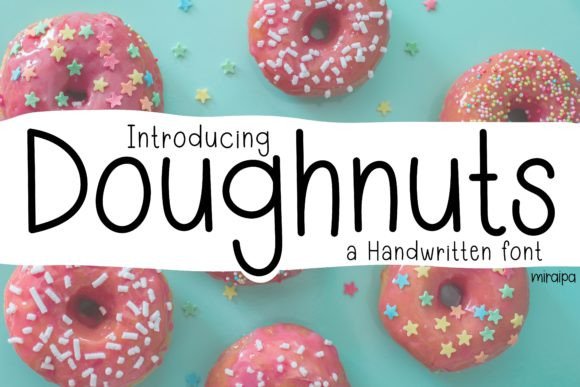
Welcome to the realm of Doughnuts Font, a handwritten masterpiece that oozes friendliness and loveliness. Step into a world where your creative visions dance with delight, embraced by the charming curves and playful strokes of this sans serif wonder. Let your imagination run wild as you explore the endless possibilities that await you.
With Doughnuts Font, transform your diary planner and journal into a symphony of personal expression. Every page will burst with warmth and character, inviting you to capture your thoughts, dreams, and aspirations with a touch of whimsy. It's the perfect companion for capturing life's little moments, turning them into cherished memories.
And oh, the projects that await your creative touch! Whether you're gearing up for back-to-school adventures, planning a magical wedding, or designing festive party decorations, Doughnuts Font will elevate your creations to new heights. Its versatility knows no bounds, lending itself seamlessly to invitations, festival posters, and social media posts that demand attention.
Picture this: a child-related design project where Doughnuts Font takes center stage. Its playful nature will bring smiles to little faces and create a sense of wonder that fuels their imagination. Or perhaps you're crafting greeting cards that radiate warmth and heartfelt emotions. With Doughnuts Font, your words will dance off the page, leaving a lasting impression on your loved ones.
But it doesn't stop there. Unleash your creativity in fashion, crafting clothing designs that exude a playful charm. Let Doughnuts Font guide you in creating logos that pop, capturing the essence of your brand with a unique, hand-drawn touch. And when you want your blog posts or social media feeds to stand out, Doughnuts Font will make sure your words command attention, leaving your audience captivated.
Add Doughnuts Font to your collection today and watch your creative projects come to life. Its friendly and lovely style will add a touch of magic to everything you create, leaving a lasting impression that resonates with your audience. Let Doughnuts Font be your creative compass, guiding you on a journey of self-expression and delight.